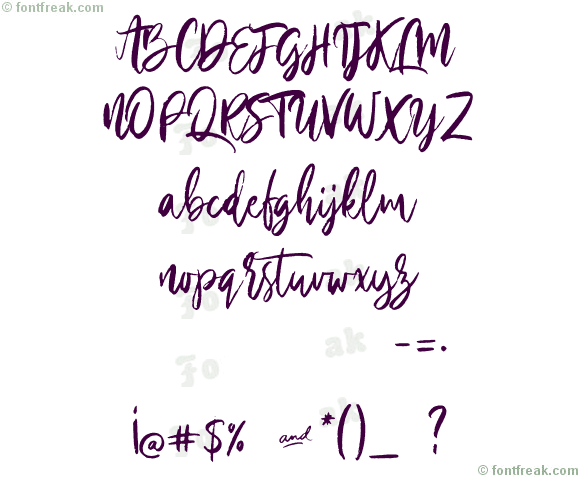
SilverCharm
About SilverCharm
SilverCharm, designed by Clement Nicolle, is a captivating script font that embodies a blend of elegance and modernity. As a handwritten typeface, it features fluid strokes and a charmingly casual aesthetic, making it an ideal choice for various creative projects. The visual characteristics of SilverCharm include a medium stroke weight with subtle contrast, providing a sense of sophistication without overwhelming the viewer. The spacing is balanced, allowing for easy readability while maintaining a stylish appearance. Decorative elements, such as graceful curves and playful loops, add a whimsical touch, enhancing its overall appeal.
This versatile font shines in a multitude of use cases. It is particularly well-suited for wedding invitations, where its romantic flair can beautifully convey heartfelt sentiments. Additionally, SilverCharm makes a striking choice for event posters, capturing attention with its unique style. Small business owners can utilize the font for branding materials, such as logos and promotional flyers, effectively communicating a friendly yet professional image. Content creators will also find it perfect for social media graphics and blog headers, giving a personal touch to their visual content.
What sets the SilverCharm font apart is its ability to blend playfulness with elegance, making it a standout choice for anyone seeking to add a unique flair to their work. With the SilverCharm font free download, users can harness this enchanting typeface to enhance their creative endeavors effortlessly.